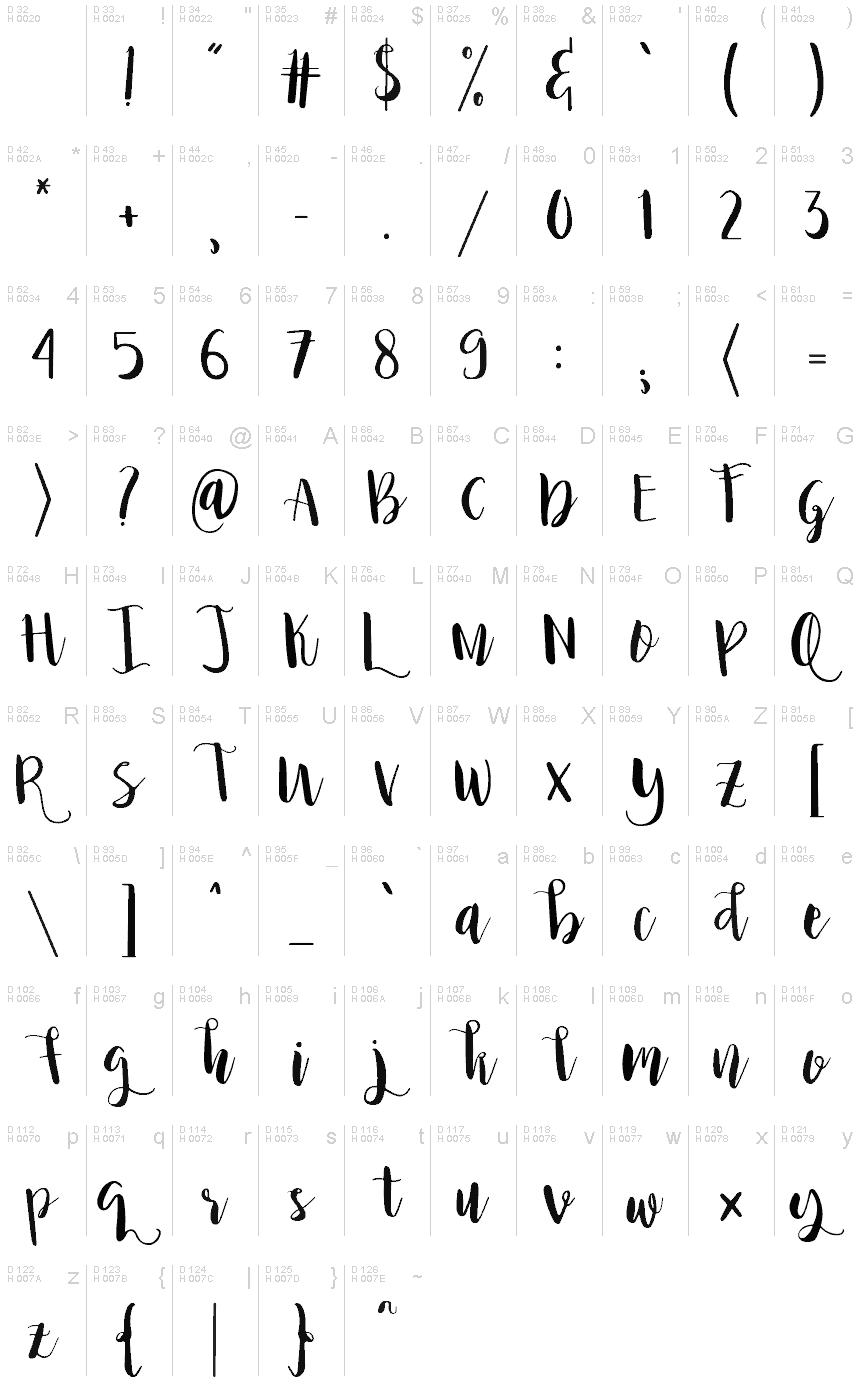
Princess Ivy
"Princess Ivy" is a captivating brush font that exudes elegance and charm. Featuring lively, flowing strokes, this typeface embodies a sense of graceful movement, evoking a sense of effortless sophistication. The intricate, calligraphic-inspired letterforms lend a touch of whimsy, making "Princess Ivy" an ideal choice for a variety of design applications, from wedding invitations and event branding to fashion and lifestyle publications. Its versatility shines through, seamlessly transitioning between formal and informal settings, elevating any project with its refined, yet playful aesthetic.
The font's dynamic nature allows it to be used in diverse contexts, from delicate branding touches to bold, attention-grabbing headlines. Its distinct personality and visual appeal make "Princess Ivy" a standout choice for designers seeking to add a touch of enchanting flair to their creations.